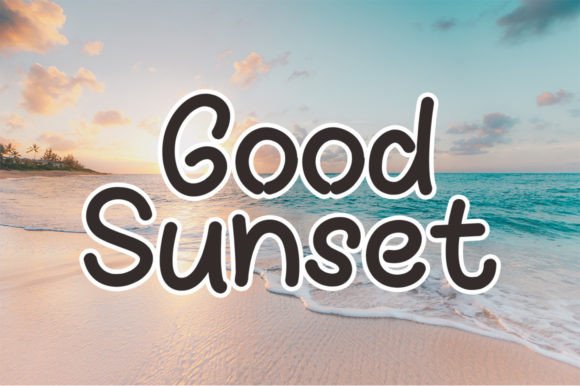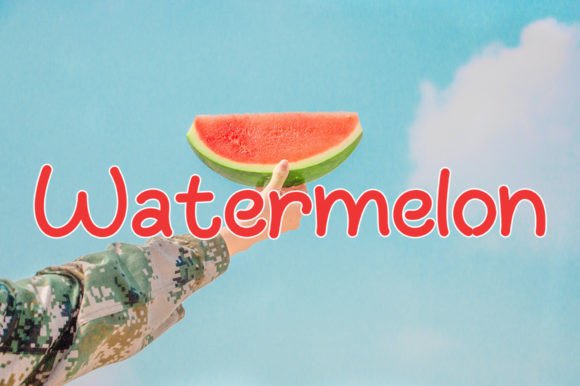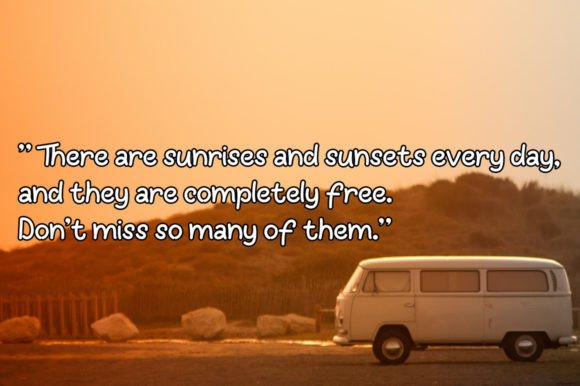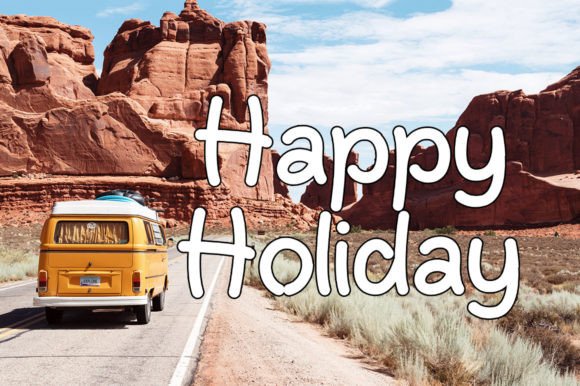
Unlock the Warmth of Summer with a Handwritten Touch
There’s something magical about a handwritten note or a beautifully crafted invitation that sets the tone for a special occasion. It’s a reminder that even in today’s digital age, there’s still value in a personal touch. As designers, we’re always on the lookout for the perfect font to convey this sense of warmth and personality.
Enter Enjoy Summer Font, a simple yet elegant handwritten font that’s perfect for a variety of projects. Whether you’re creating wall displays, wedding invitations, or social media post logos, this font adds a touch of whimsy and charm that’s hard to resist. For designers, Enjoy Summer Font is a valuable asset that can elevate even the most mundane projects into something truly special.
Enjoy Summer Font Key Features
- Size: The font family includes multiple weights, ranging from Light (300) to Bold (700), providing flexibility for various design applications.
- Unique Characteristics: The Enjoy Summer Font features a playful, cursive script with a summer-inspired aesthetic, making it perfect for designs related to vacation, travel, or leisure activities.
- Unicode Support: The font includes a wide range of Unicode characters, ensuring compatibility with languages that use non-Latin scripts.
- Font Metrics: The Enjoy Summer Font has a x-height of 550, an ascender of 750, and a descender of 250, providing a balanced and readable text layout.
Enjoy Summer Font Review
At first glance, the “Enjoy Summer Font” seems like a refreshing addition to any summer-themed project. The font’s design ✨ captures the carefree spirit of the season, with rounded edges and a playful feel.
One of the standout features of this font is its versatility ✨. It can be used for a variety of projects, from summer-themed advertisements to invitations and social media graphics. The font’s light and airy feel makes it perfect for creating a sense of freedom and joy.
Limitsations
However, there are some limitations to consider ⚠️. The font may not be suitable for projects that require a more formal or serious tone. Additionally, the font’s rounded edges can make it difficult to read in certain contexts, particularly at smaller font sizes.
Here are some specific limitations to keep in mind:
- Lack of bold or italic styles, which may limit its use in certain situations
- May not be suitable for projects that require a high level of readability
- Not ideal for projects that require a lot of text or complex layouts
Overall, I think the “Enjoy Summer Font” is a fun and creative addition to any summer-themed project. While it may have some limitations, its unique design and versatility make it a great choice for projects that require a light and playful feel.
The Enjoy Summer Font is perfect for:
- Summer-themed designs, such as invitations, posters, or social media graphics.
- Custom typography for summer-themed products, such as t-shirts, stickers, or brochures.
- Adding a touch of summer fun to presentations or documents, such as summer-themed reports or newsletters.
What is the recommended font size for using the Enjoy Summer Font?
The Enjoy Summer Font is designed to be versatile and can be used at a wide range of font sizes. However, for optimal readability, we recommend using font sizes between 12pt and 24pt for body text and larger sizes for headings and titles.